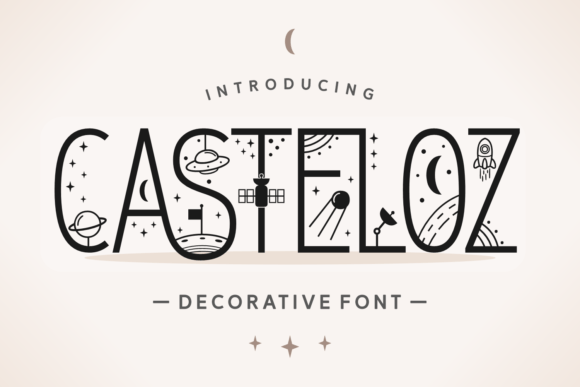
Journey into the realm of captivating typography with Casteloz Font, a decorative masterpiece inspired by the boundless expanse of outer space. Its celestial charm and futuristic allure make it the perfect font for those seeking to create awe-inspiring designs that transcend the ordinary.
Explore the uncharted territories of creativity with Casteloz Font, meticulously crafted to ignite your imagination and transport your designs to the cutting edge of innovation. Its unique character and futuristic appeal will leave a lasting impression on your audience, effortlessly elevating your projects to new heights of brilliance.
With Casteloz Font, you hold the key to unlocking a universe of creative possibilities. Its versatility knows no bounds, lending itself seamlessly to a myriad of applications, from sleek logos that command attention to captivating posters that ignite curiosity. Unleash your creativity and let Casteloz Font guide you to design greatness.
Harness the power of Casteloz Font and embark on an extraordinary voyage of visual storytelling. Its captivating glyphs will effortlessly elevate your designs, whether you're crafting futuristic magazine layouts, designing eye-catching movie titles, or creating vibrant social media graphics. Each letterform is a testament to the boundless possibilities that lie within the realm of typography.
Immerse yourself in the cosmic beauty of Casteloz Font, a font that embodies the boundless potential of human imagination. Its celestial aura will transform your designs into captivating works of art, leaving your audience spellbound. Embrace the allure of Casteloz Font today and transcend the limits of ordinary typography.